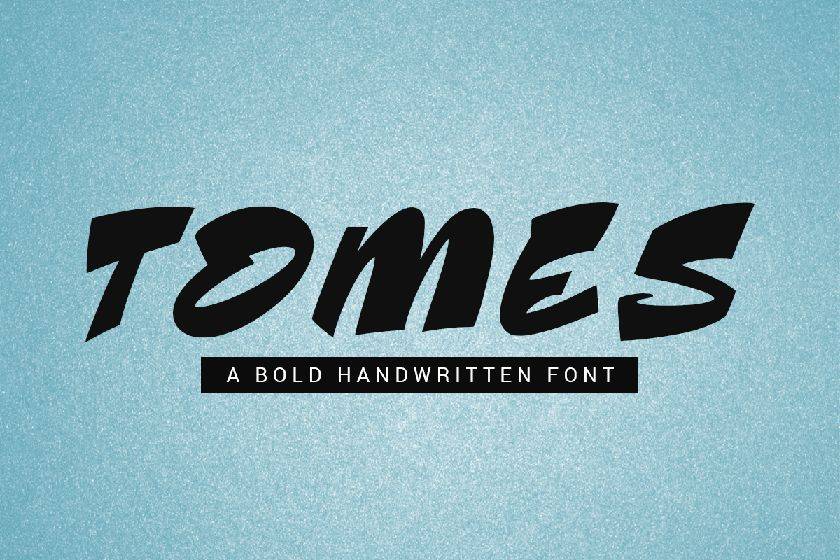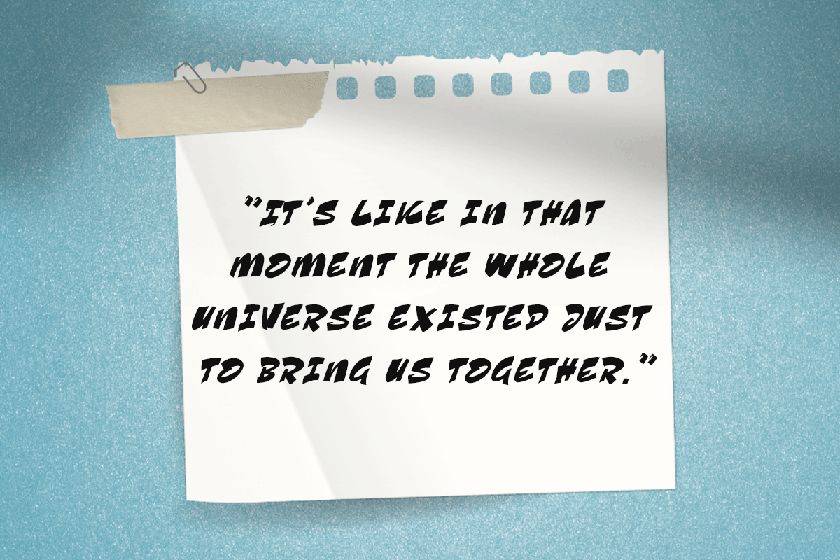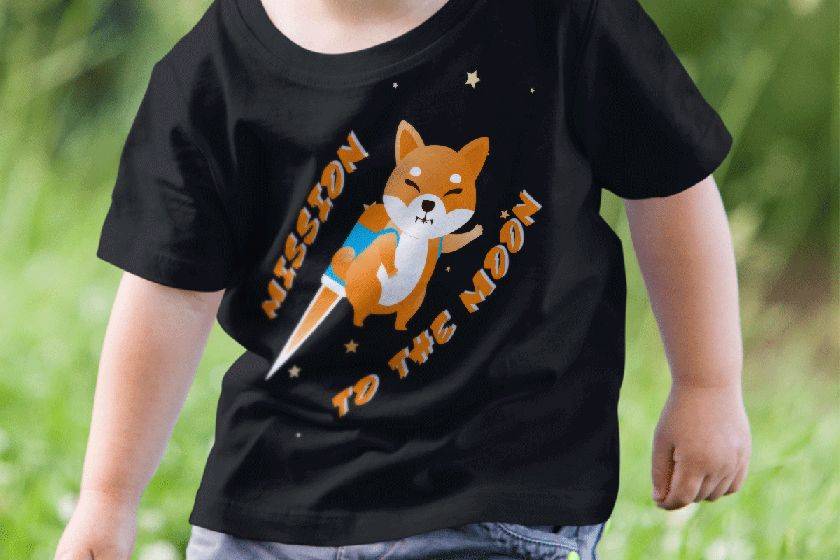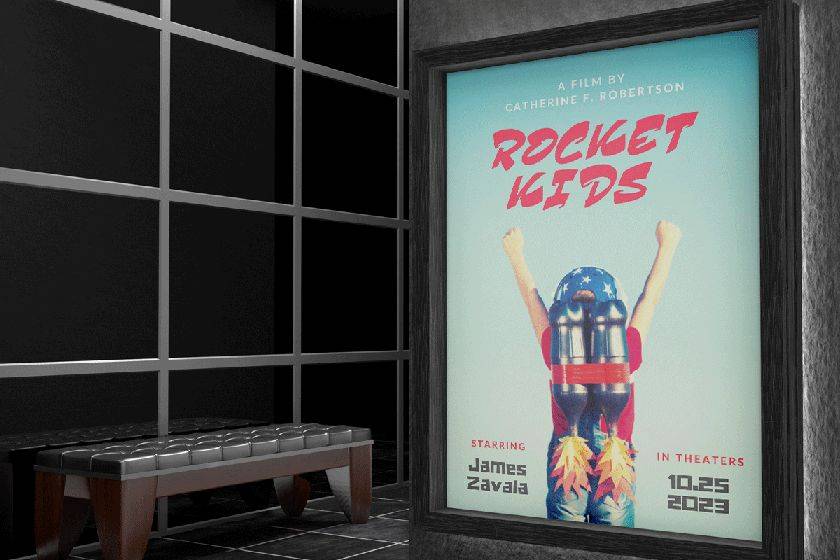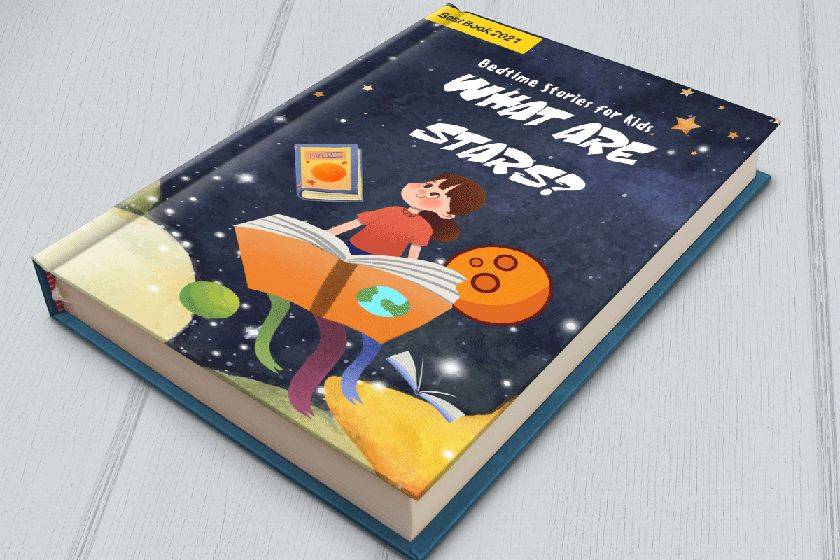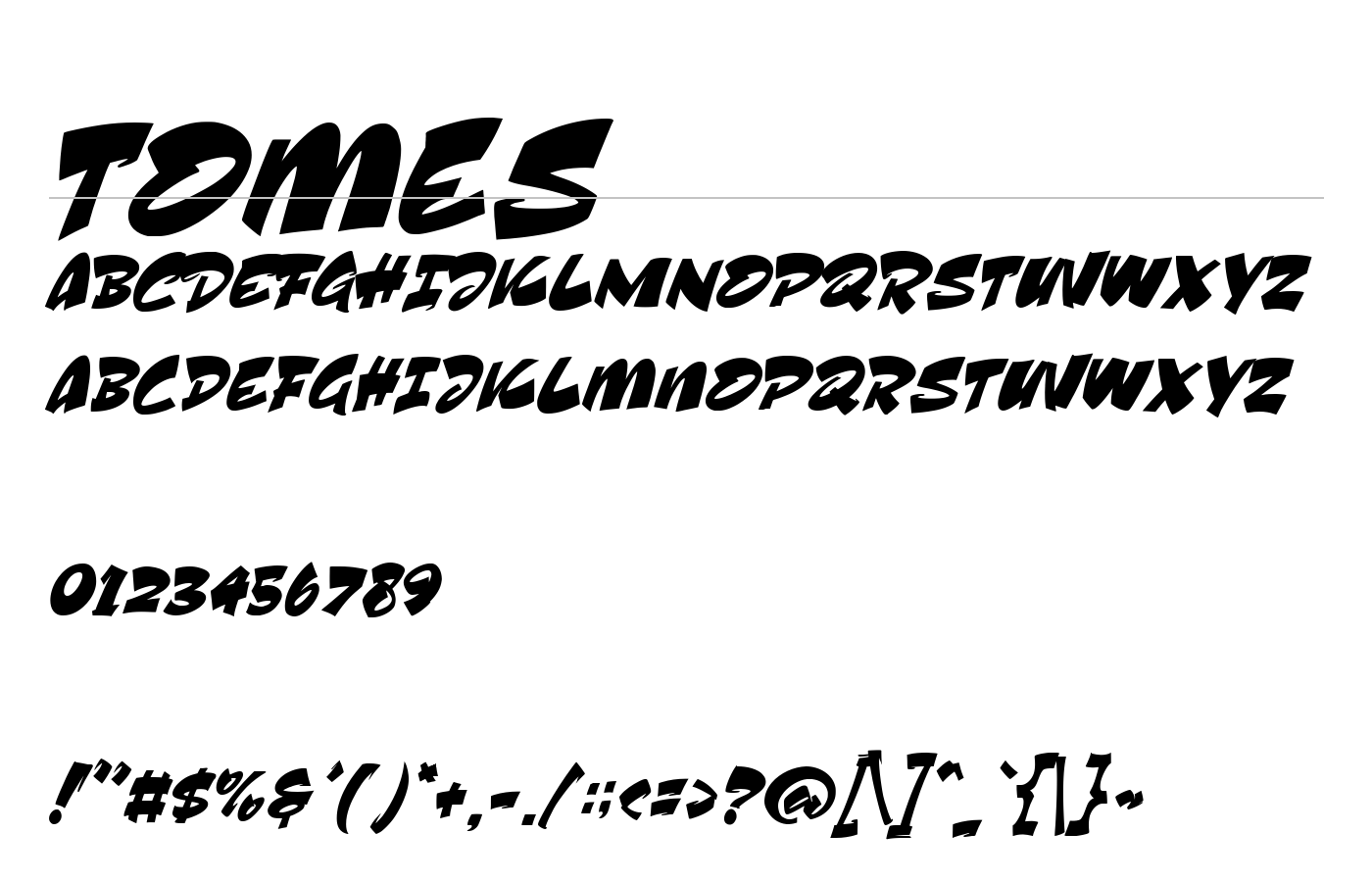
Tomes is a bold, energetic sans serif display font with a brush-script style that feels dynamic and urban. Its strong, slightly condensed letterforms with irregular edges and high contrast strokes make it perfect for eye-catching headlines, logos, and creative projects needing a lively, modern vibe. This font's playful yet assertive personality works well in branding, posters, and designs that want to convey confidence with a touch of artistic flair.
Tomes Font
About Tomes Font